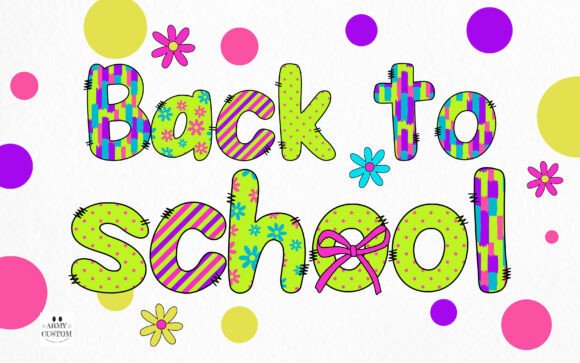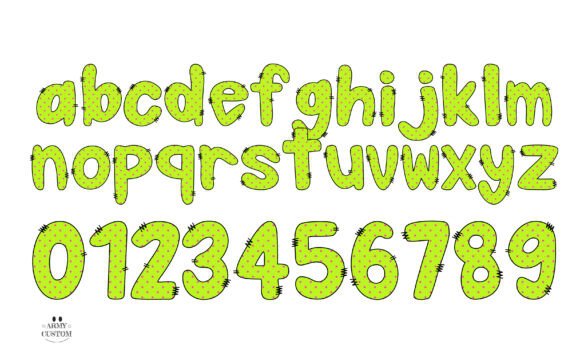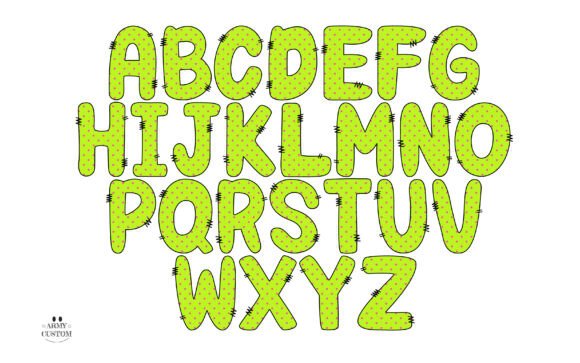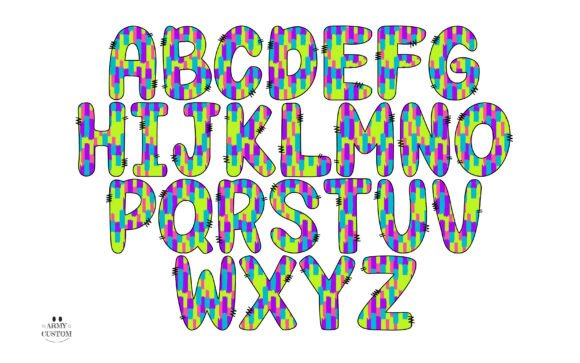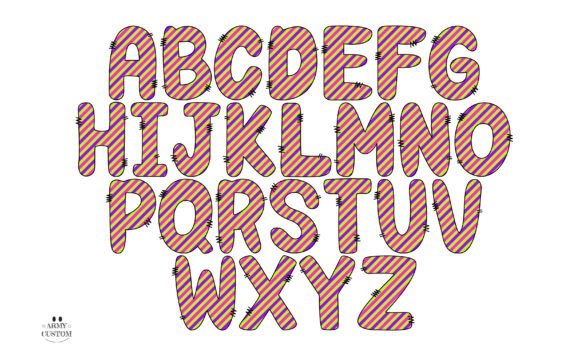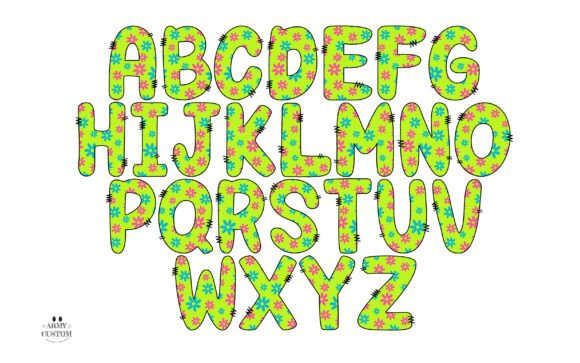
Brightarmy Polkadot Font: A Vibrant and Playful Typeface Inspired by Childhood Memories
Are you a designer or crafter looking for a font that captures the bold, playful spirit of the ’90s? Look no further than the Brightarmy Polkadot Font, part of the Bright Alphabet Bundle OTF. This vibrant color font collection is a patchwork of childhood memories, featuring hand-stitched outlines with vivid, nostalgic patterns like checkerboards, polka dots, florals, and painterly brushstrokes.
A Font that Feels like Childhood
The Bright Alphabet fonts, including Brightarmy Polkadot Font, feel like a scrapbook of childhood memories. Each letter is a mini canvas of joy, whether it’s decked out in wild prints or wrapped in pastel whimsy. The fonts are display-oriented, making them ideal for headlines, stickers, children’s products, school-themed graphics, and retro-style branding.
Key Features of Brightarmy Polkadot Font
- Vibrant Color Font Collection: The Bright Alphabet Bundle OTF features four energetic type styles, each fully rendered in color.
- Hand-Stitched Outlines: The fonts feature hand-stitched outlines with vivid, nostalgic patterns like checkerboards, polka dots, florals, and painterly brushstrokes.
- Layered Textures: The fonts have layered textures and a soft, cartoonish silhouette, combining digital precision with a handcrafted, patchwork feel.
- Attention-Grabbing: This typeface instantly commands attention and radiates joy, making it perfect for designers and crafters looking to add a playful touch to their projects.
Brightarmy Polkadot Font is perfect for designers and crafters who want to add a touch of nostalgia and playfulness to their projects. Whether you’re creating:
- Headlines: Add a pop of color and energy to your headlines with Brightarmy Polkadot Font.
- Stickers: Create fun and playful stickers for kids’ parties, events, or everyday use.
- Children’s Products: Add a touch of whimsy to children’s products, such as toys, books, or educational materials.
- School-Themed Graphics: Create eye-catching school-themed graphics, such as posters, flyers, or social media graphics.
- Retro-Style Branding: Give your brand a retro makeover with Brightarmy Polkadot Font, perfect for food trucks, cafes, or boutiques.
Why Choose Brightarmy Polkadot Font?
With Brightarmy Polkadot Font, you get:
- Unique and Playful Design: Stand out from the crowd with a font that’s both unique and playful.
- Instant Recognition: The font’s bold, colorful design ensures instant recognition and attention.
- Easy to Use: The font is easy to use and works seamlessly with design software.
- High-Quality: The font is high-quality, with crisp and clear lines that look great on any device.
Brightarmy Polkadot Font is a vibrant and playful typeface that’s perfect for designers and crafters looking to add a touch of nostalgia and whimsy to their projects. With its hand-stitched outlines, layered textures, and bold, colorful design, this font is sure to command attention and radiate joy. Whether you’re creating headlines, stickers, children’s products, or retro-style branding, Brightarmy Polkadot Font is the perfect choice.